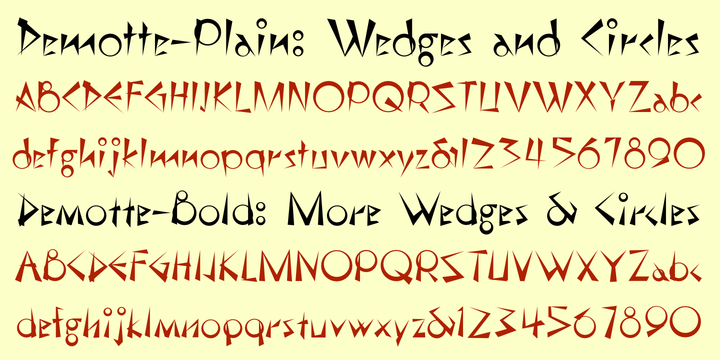
Demotte
Designed by: Robert Schenk
Designed when: 1990
Design owned by: Ingrimayne Type
Demotte
Demotte is a display face made up of triangular blocks and some circles. It comes in two styles. In one style the triangular blocks point up so that the letters are heavy at the base, and in the other the blocks point down so that the letters are heavier at the top.